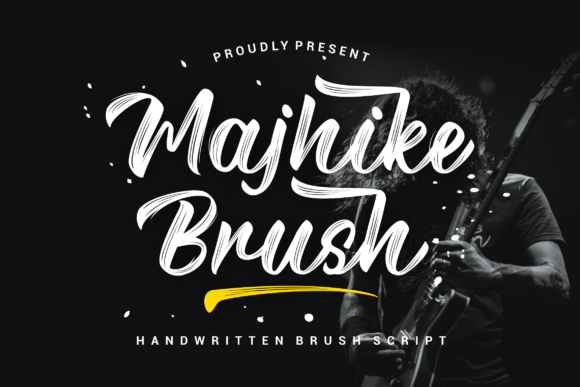
Journey into the realm of captivating typography with Majhike Brush Font, a script font family that exudes elegance and charm. Its meticulously crafted strokes dance across the page, evoking a sense of artistry and sophistication that will leave you spellbound. Whether you're a seasoned designer or a creative enthusiast, Majhike Brush is your gateway to unlocking a world of stunning visual masterpieces.
Immerse yourself in the limitless possibilities that await you with Majhike Brush. Its carefully designed characters are a symphony of beauty, effortlessly elevating your creations with a touch of timeless allure. From eye-catching headlines that demand attention to enchanting logos that leave a lasting impression, Majhike Brush is your secret weapon for crafting designs that speak volumes.
Unleash your creativity and let Majhike Brush guide you through a voyage of artistic expression. Its versatile nature makes it the perfect companion for a myriad of projects. Whether you're designing posters that ignite imaginations, crafting invitations that exude warmth and elegance, or composing social media posts that capture the essence of your brand, Majhike Brush seamlessly adapts to your vision, transforming your words into works of art.
The world of design awaits your exploration, and Majhike Brush is your trusted compass. Its intuitive design and user-friendly interface ensure that even beginners can navigate the font's features with ease. Experience the joy of effortless creativity as Majhike Brush harmonizes with your artistic vision, guiding you toward breathtaking design outcomes.
Majhike Brush isn't just a font; it's an invitation to embark on a journey of self-expression and artistic fulfillment. Its enchanting characters are like delicate brushstrokes, painting a tapestry of emotions and ideas that resonate with your audience. As you wield Majhike Brush, you'll discover a newfound confidence in your creative abilities, unlocking a realm of possibilities that were once hidden from view.
Don't settle for ordinary fonts that fade into the background. Embrace the extraordinary with Majhike Brush Font, a font family that ignites your imagination and empowers you to create designs that captivate and inspire. Its timeless beauty and versatility will transform your creative projects into masterpieces that leave an indelible mark on the world.